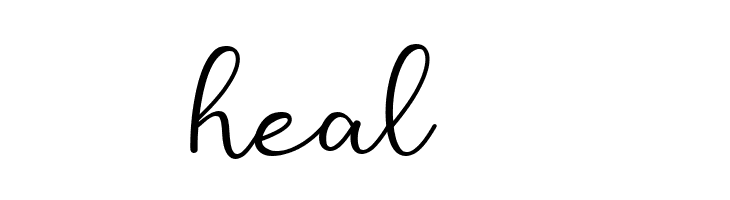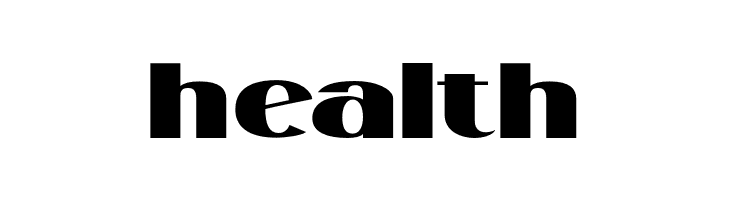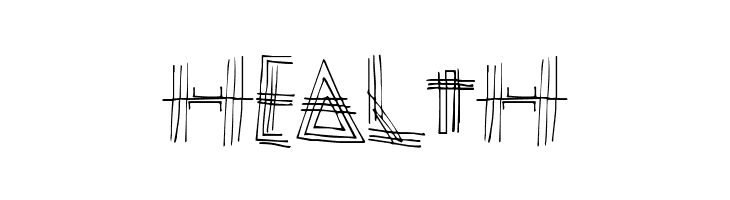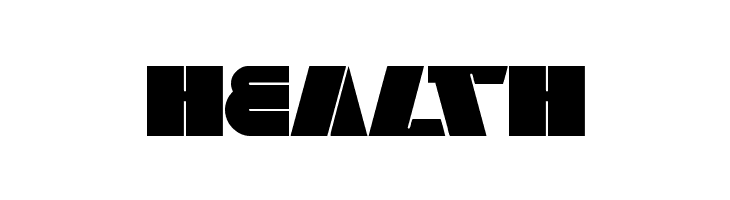
A modern, artistic font with intersecting lines creating a dynamic look.
A bold, modern font with sharp angles and clean lines.
Playful handwritten script font.
A graceful script font with flowing, interconnected characters.
A bold, expressive handwritten font with fluid, cursive strokes.
A playful, handwritten font with smooth, rounded strokes.
A bold, angular font with a futuristic and industrial aesthetic.
A bold, angular, italicized font with a modern geometric style.
A bold, geometric font with sharp angles and a modern, edgy style.